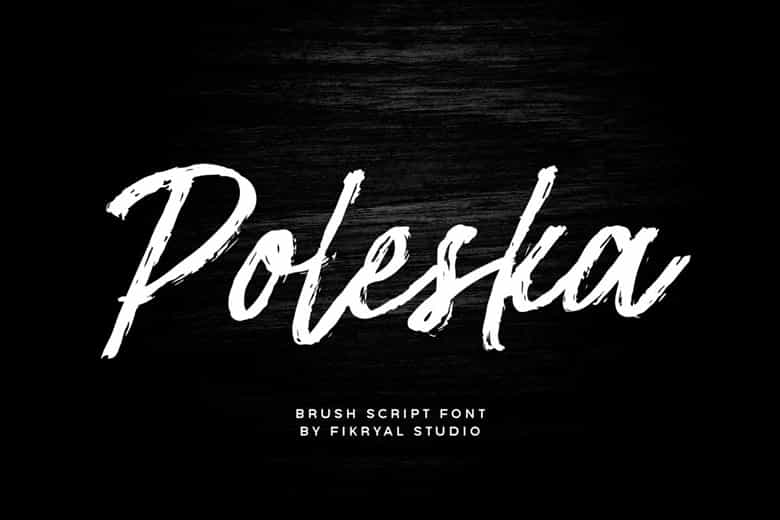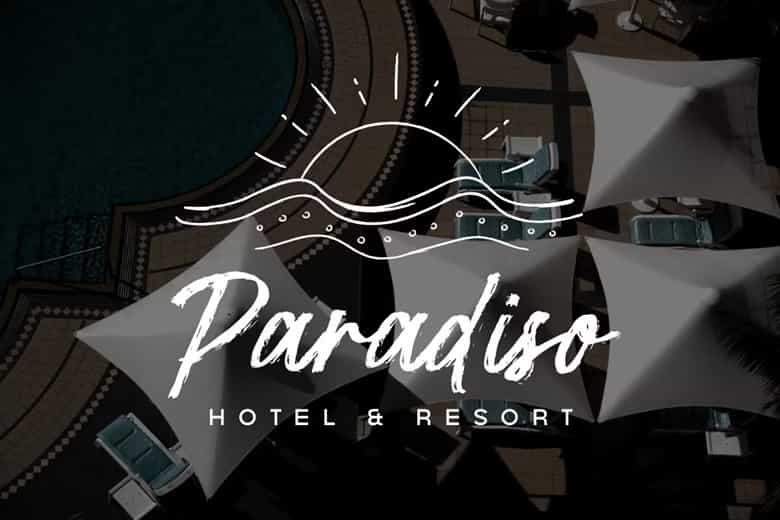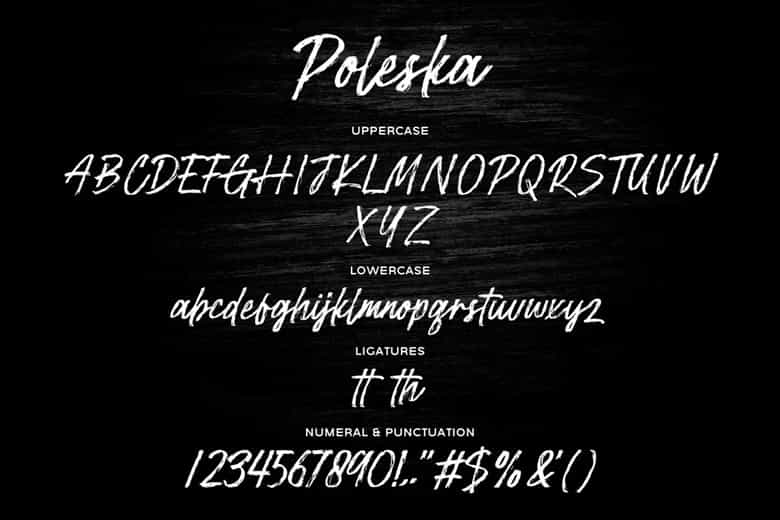
Poleska – a dynamic and expressive brush script font with a natural brushstroke style. This font combines the feeling of hand-drawn typography just on pencils that gives a more natural feel to the general typeface of any project.